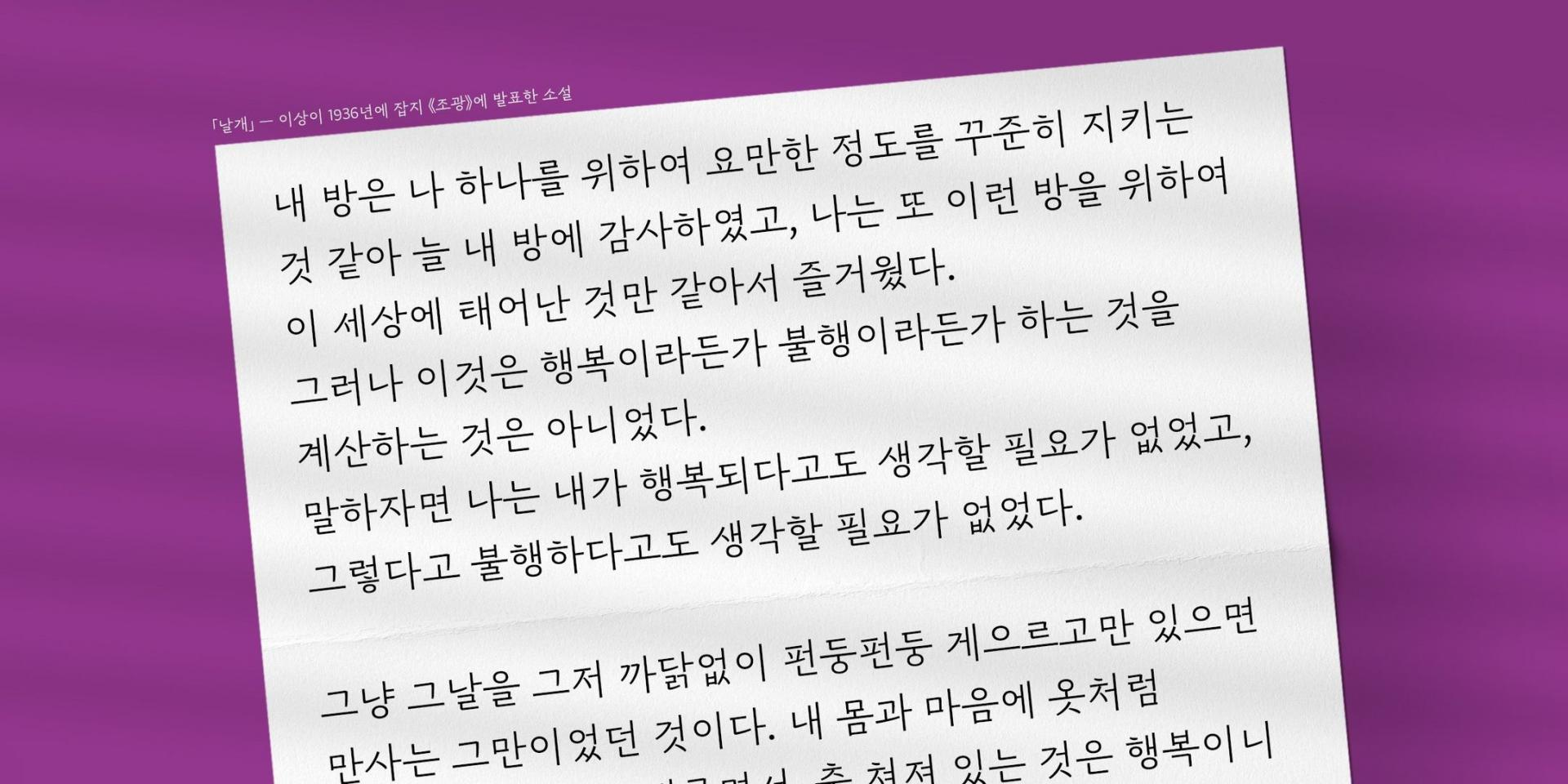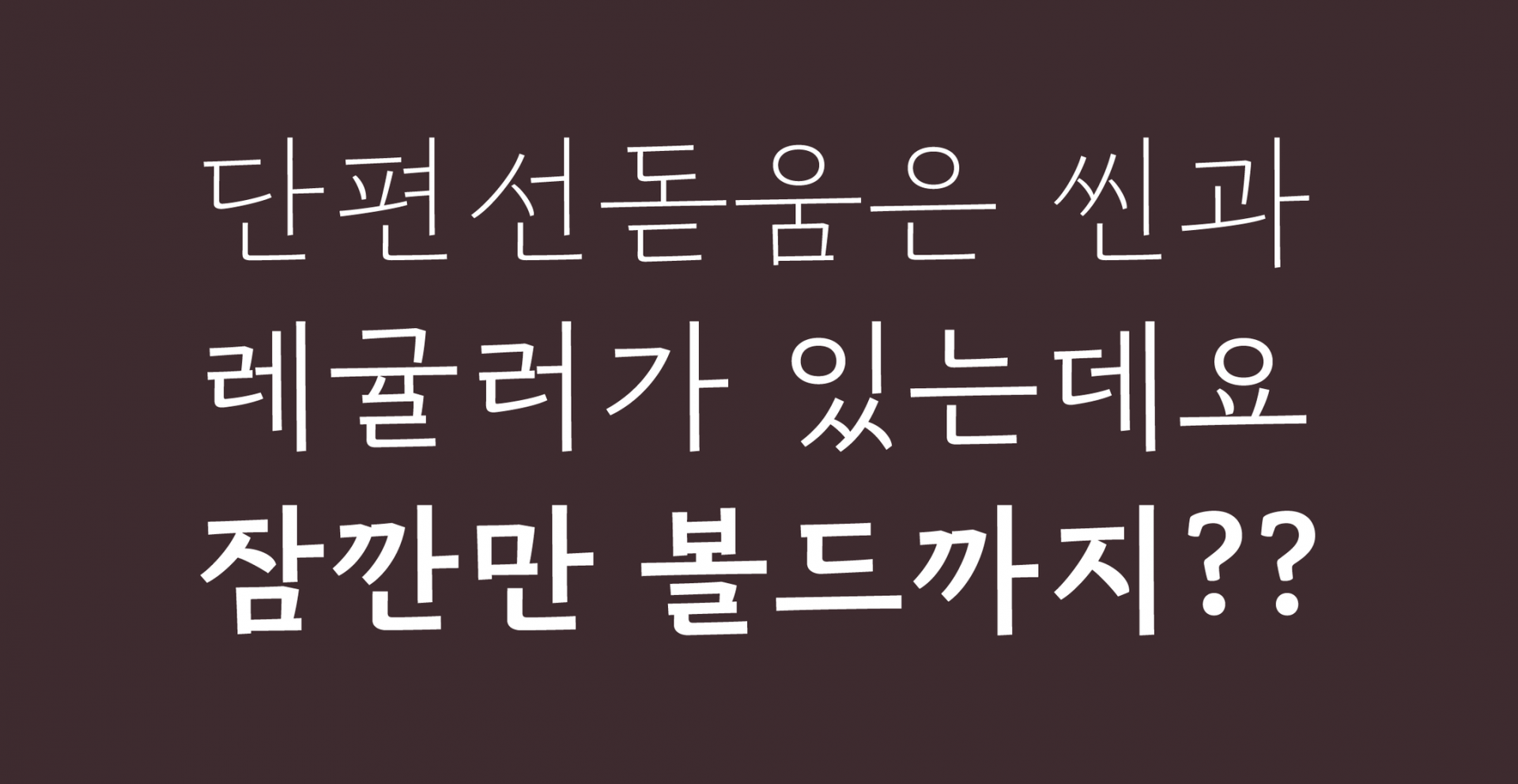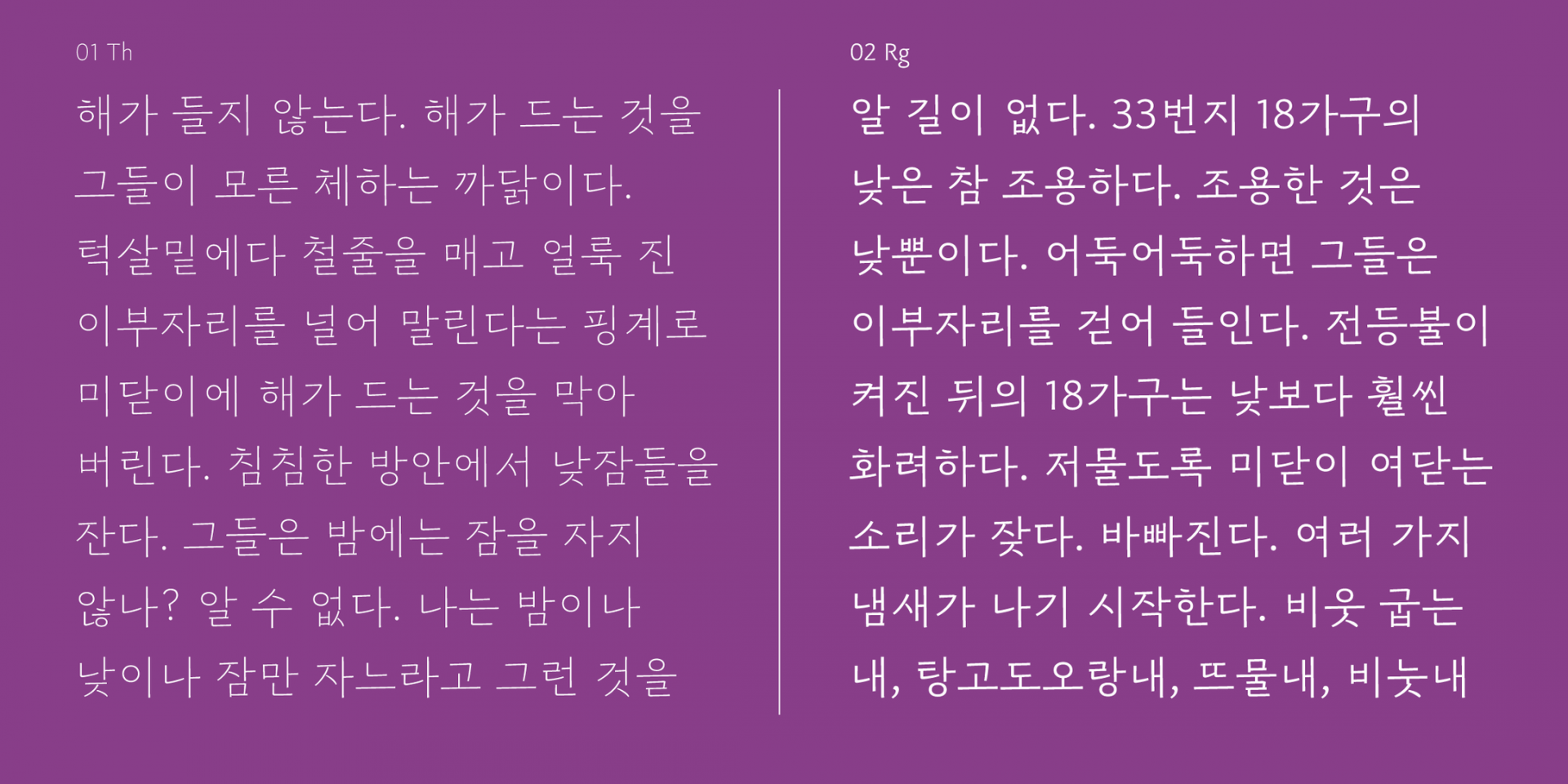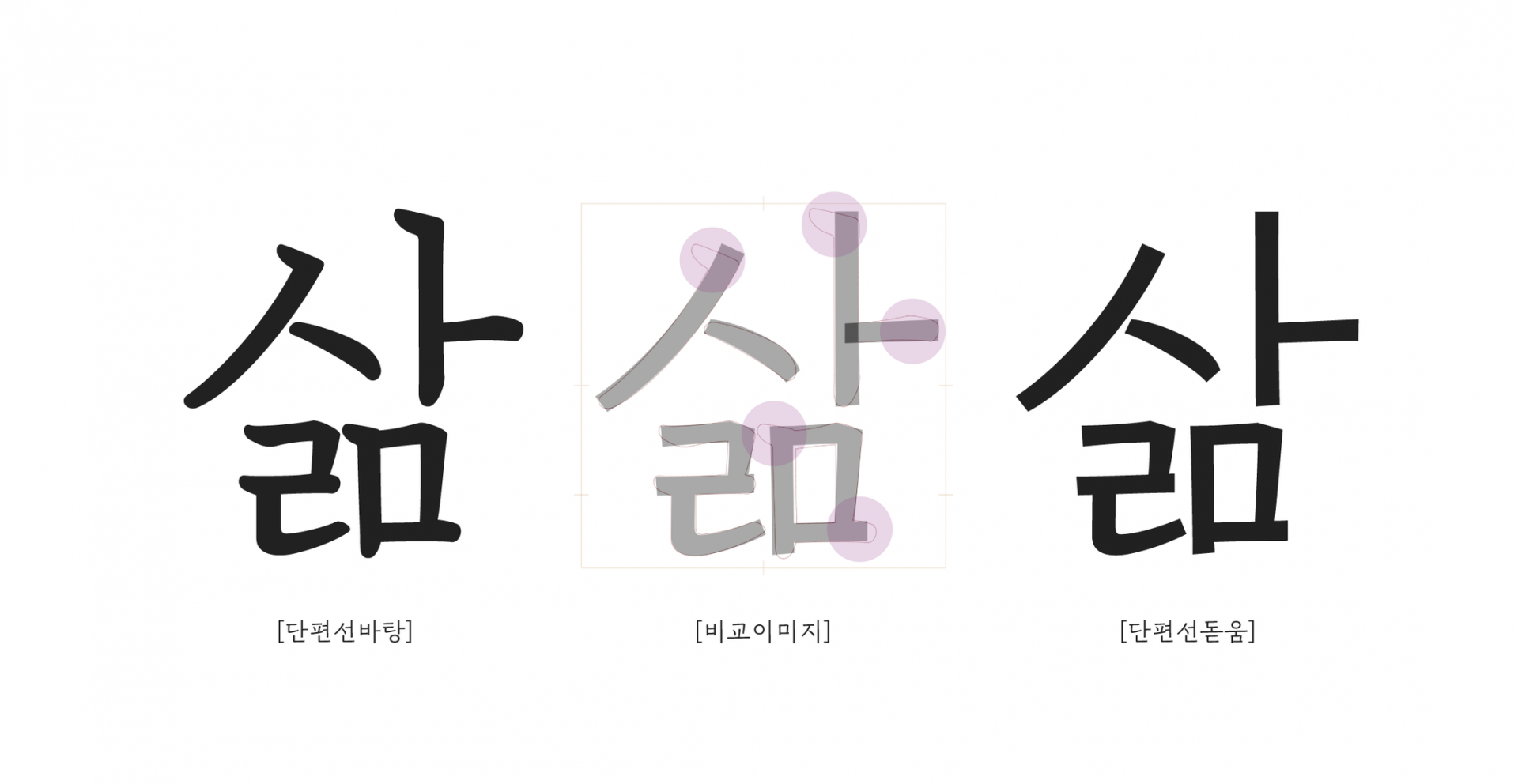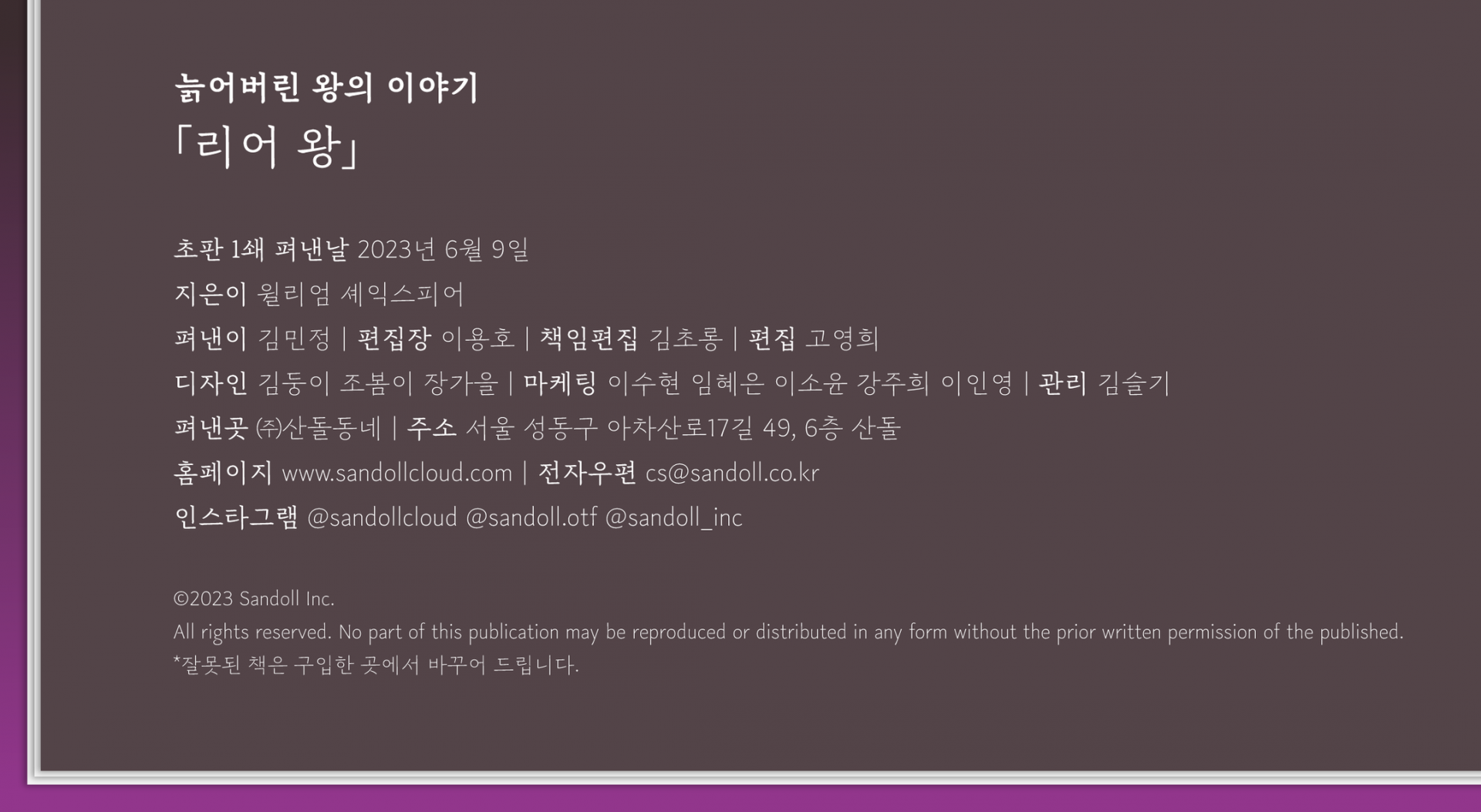
「SD Danpyeonseon Dodum」, a casual-looking font that makes typesetting easy
Introduction
Following the release of 「Sandoll Danpyeonseon Batang」 in January 2020, 「SD Danpyeonseon Dodum」 was finally released in June 2023. 「Danpyeonseon Batang」 is a font frequently encountered in bookstores. More precisely, it can be described as a body text font that has been widely embraced in the publishing industry.
The 『SD Danpyeonseon』 series was created with the participation of three designers. Lee Su-hyeon planned the font family and designed 「Danpyeonseon Batang」; Kim Cho-rong refined, developed, and released 「Danpyeonseon Dodum」; and Kim Min-jeong, who authored this article, joins them to share their perspectives.
Words conveyed by Nordic illustrations, Eojjeoda Chaekbang / 「Danpyeonseon Batang」
Q. Please introduce the 『SD Danpyeonseon』 series.
Su-hyeon: The 『SD Danpyeonseon』 series is a body text font family project that began in January 2019. The goal was to broaden the limited range of body text fonts and to create a body text font with a new impression. To plan a differentiated font family, we conducted desk research, and as a result, we identified the most lacking area and set the direction as “a body text family with a casual impression.”
Based on this, the 『SD Danpyeonseon』 series was developed through a refinement process that implements the form and texture of short, solid brush strokes, resulting in a casual impression. The large, straight strokes create a clear and open feel, while the white spaces divided by the black strokes are also relatively large rather than fragmented. This gives a neat atmosphere in typesetting, making it well suited for long-form text.
「Danpyeonseon Dodum」
Q. What was the background behind planning 「Danpyeonseon Dodum」 following 「Danpyeonseon Batang」?
Su-hyeon: I believe that most designers have, at least once, experienced discomfort when mixing batang and dodum fonts due to their stark stylistic differences. This happens because fonts that were planned differently from the outset are used together. The 『SD Danpyeonseon』 series was planned to align with the goal of being an easy-to-use body text font, by including both batang* and dodum** within the same family so they could be used effectively together. Batang and dodum differ only in the characteristics of the tool, while sharing the same structure and width, and were therefore designed to give a consistent impression. As a result, even when designers mix batang and dodum, the typesetting remains natural.
*Batang refers to a category of fonts with buri(serifs). (ex: myeongjo, batang, buri)
**Dodum refers to a Minburi(sans-serif) category of fonts. (ex: gothic, dodum, minburi)
「Danpyeonseon Batang」 and 「Danpyeonseon Dodum」
Q. How does 「Danpyeonseon Dodum」 differ from typical dodum fonts?
Min-jeong: 「Danpyeonseon Dodum」 belongs to the humanist sans category of fonts. Compared to typical dodum fonts, it carries more traces of human handwriting. At first glance, it may feel linear, but on closer inspection, you can see restrained curves. Typical dodum fonts have a well-ordered impression and are easy to use anywhere. At the same time, their broad versatility can make them feel rigid and expressionless.
I think 「Danpyeonseon Dodum」 has a calm, restrained quality, along with a warmth that feels human. Because of this, it has the strength to convey written content more persuasively. As a personal opinion, I think it would work especially well for essays written in a steady, reflective tone, or for lyrical poetry.
Q. What was the production process of 「Danpyeonseon Dodum」 like?
Cho-rong: During the production process, the point we paid the most attention to was ensuring that its impression would not diverge from that of 「Danpyeonseon Batang」. For this reason, 「Danpyeonseon Dodum」 was developed by first adopting the underlying structure of 「Danpyeonseon Batang」, then simplifying the rounded curves and stroke endings of the brush into straighter forms.
「Danpyeonseon Batang」 retains certain characteristics of brush writing, so stroke endings are expressed with slight variations in thickness. When these characteristics were applied directly to 「Danpyeonseon Dodum」, the solid and restrained impression we originally aimed for felt somewhat diminished. Therefore, we carefully adjusted stroke contrast, reducing it compared to 「Danpyeonseon Batang」 so that the texture would appear more even in typesetting. In addition, for the spaces created by removing the serifs, we maintained the same underlying structure while making fine adjustments to character size and stroke length. This was done so that, when 「Danpyeonseon Dodum」 and 「Danpyeonseon Batang」 are used together, they produce a similar gray value.
A comparison image of 「Danpyeonseon Batang」 and 「Danpyeonseon Dodum」
Min-jeong: To expand the range of use for 「Danpyeonseon Dodum」, I worked on deriving 11,172 Hangul characters across two weights. This involved reviewing and revising multiple printed proofs. It was a process that required careful refinement so that the impression and atmosphere of 「Danpyeonseon Batang」 and 「Danpyeonseon Dodum」 would align.
In fact, in addition to the Regular weight released this time, a Bold weight was also planned. However, for the Bold, where strokes are expressed with heavier thickness, additional design adjustments were unavoidable. We felt that forcing production to meet the release schedule would leave something to be desired in terms of quality. Ultimately, with the intention of presenting a better result even if it took more time, we decided to postpone the release of the Bold. While a specific schedule has not yet been set, with your support, it may arrive sooner than expected.
In closing
Min-jeong: As described above, the completed 『SD Danpyeonseon』 series has a casual impression. It is better suited to literature rather than non-fiction, to short stories rather than long works, and to contemporary writing rather than traditional texts. Using 「Danpyeonseon Batang」 and 「Danpyeonseon Dodum」 together in typesetting would be ideal. In particular, while 「Danpyeonseon Dodum」 works well for standard body text, it is also effective when used at slightly larger sizes. For example, I think it works well for sentences that convey a brand’s philosophy, advertising copy that delivers messages effectively, or film subtitles that communicate quiet, everyday emotion. I hope this font will be helpful to many of you and receive much appreciation, and thank you sincerely for taking the time to read this long article.
「Danpyeonseon Dodum」